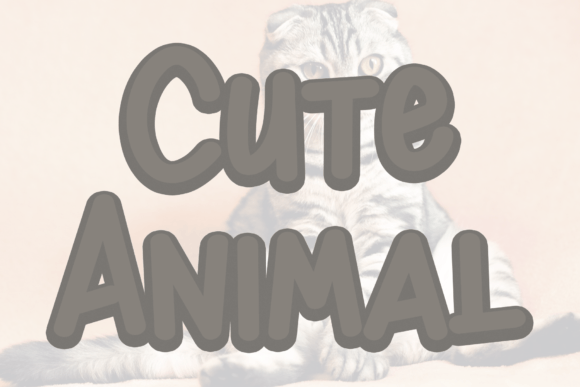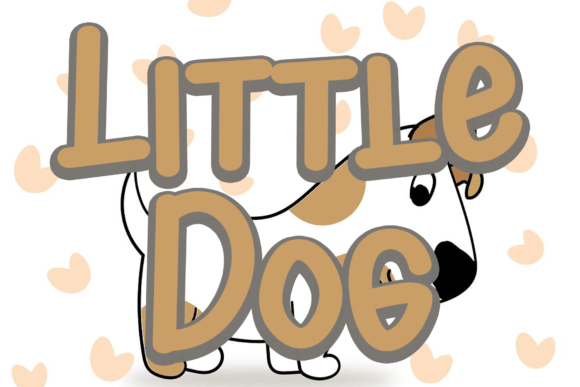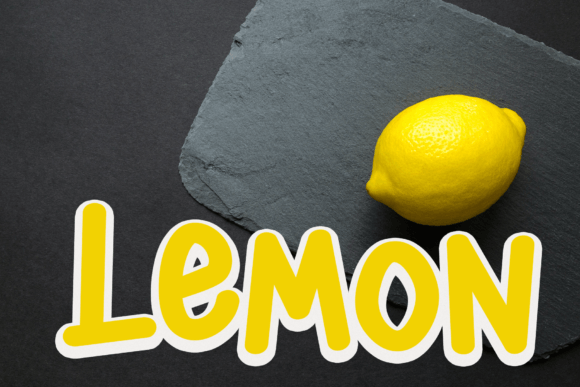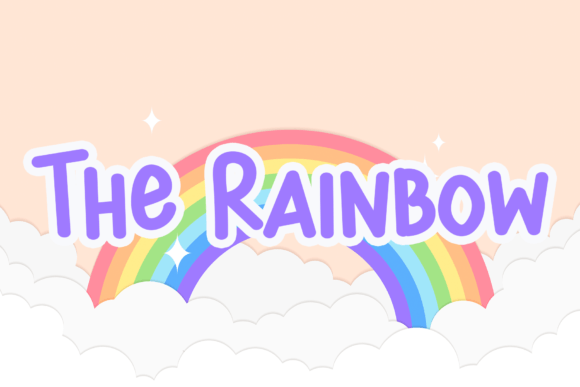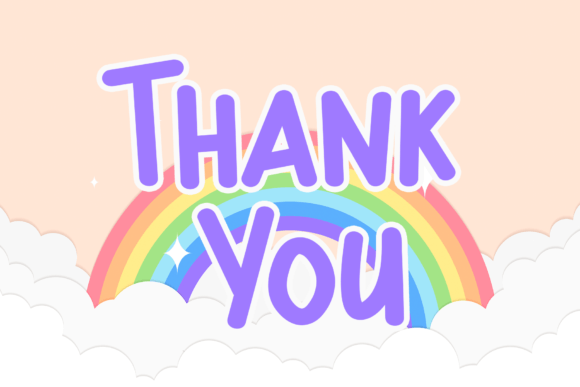
Introducing Cat Font: The Purrfect Addition to Your Design Arsenal
Are you on the hunt for a font that exudes warmth, friendliness, and a dash of playfulness? Look no further than Cat Font, a sweet and charming handwritten display font that’s sure to capture the hearts of designers and crafters alike. With its endearing and whimsical style, Cat Font is the ideal choice for adding a fun touch to a wide range of design projects, from wedding invitations and cards to branding materials and more.
The Characteristics of Cat Font
So, what makes Cat Font so special? For starters, its handwritten nature gives it a distinctly personal and approachable feel, making it perfect for designs that require a touch of warmth and personality. The font’s playful and carefree vibe is sure to evoke a smile, and its versatility ensures that it can be used in a variety of creative contexts.
Some of the key characteristics of Cat Font include:
- Handwritten style: Cat Font boasts a beautifully crafted handwritten style that’s both elegant and approachable.
- Playful and fun: With its bouncy and carefree vibe, Cat Font is guaranteed to add a dash of whimsy to your designs.
- Versatile: Whether you’re working on a wedding invitation, a greeting card, or a branding project, Cat Font is the perfect choice.
Why Designers and Crafters Love Cat Font
So, why have designers and crafters fallen head over heels for Cat Font? For one, its unique and charming style allows them to add a personal touch to their designs, setting them apart from more generic and impersonal fonts. Additionally, Cat Font’s versatility and ease of use make it a joy to work with, even for those who may not be seasoned design professionals.
Some of the reasons why designers and crafters love Cat Font include:
- Ease of use: With its clean and intuitive design, Cat Font is easy to use, even for those who may not be familiar with working with fonts.
- Customization options: Cat Font can be easily customized to suit your design needs, allowing you to experiment with different colors, sizes, and styles.
- Emotional connection: With its warm and friendly style, Cat Font helps designers create an emotional connection with their audience, making their designs more relatable and engaging.
Using Cat Font in Your Designs
So, how can you use Cat Font in your designs? The possibilities are endless! Here are a few ideas to get you started:
- Wedding invitations: Add a touch of romance and whimsy to your wedding invitations with Cat Font.
- Greeting cards: Use Cat Font to create fun and playful greeting cards for birthdays, holidays, and other special occasions.
- Branding materials: Incorporate Cat Font into your branding materials, such as logos, business cards, and brochures, to add a touch of personality and whimsy.
- Social media graphics: Use Cat Font to create eye-catching and engaging social media graphics that are sure to grab attention.
Tips and Tricks for Working with Cat Font
To get the most out of Cat Font, here are a few tips and tricks to keep in mind:
- Experiment with colors: Cat Font looks great in a variety of colors, so don’t be afraid to experiment and find the perfect hue for your design.
- Play with sizes: Cat Font can be used in a range of sizes, from large and bold to small and delicate.
- Mix and match: Combine Cat Font with other fonts and design elements to create a unique and eye-catching design.